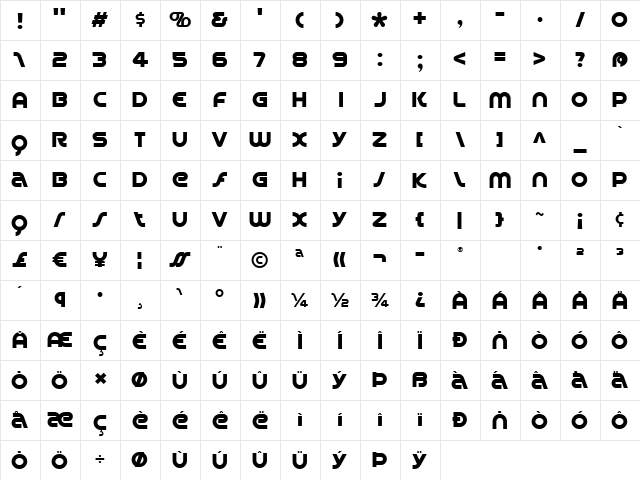
Spin Cycle Regular
Design Context for Spin Cycle Typeface
Spin Cycle is a composed and adaptable typeface that performs quietly and consistently across a wide range of design contexts.
Pro Tip: Pair Spin Cycle with a font of contrasting weight or personality to build a more expressive typographic hierarchy.